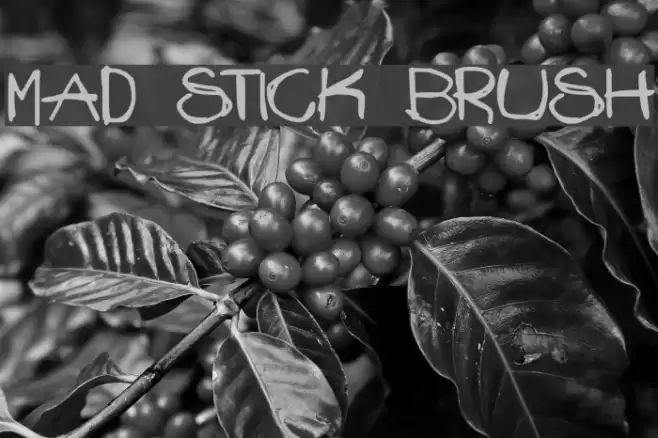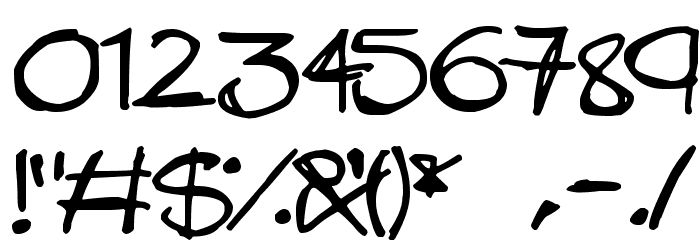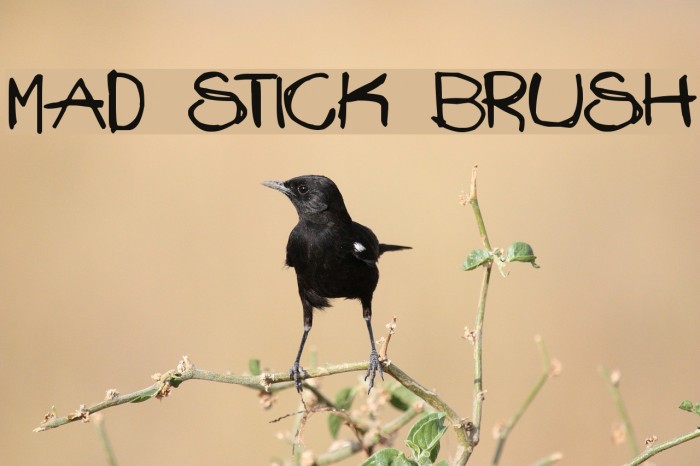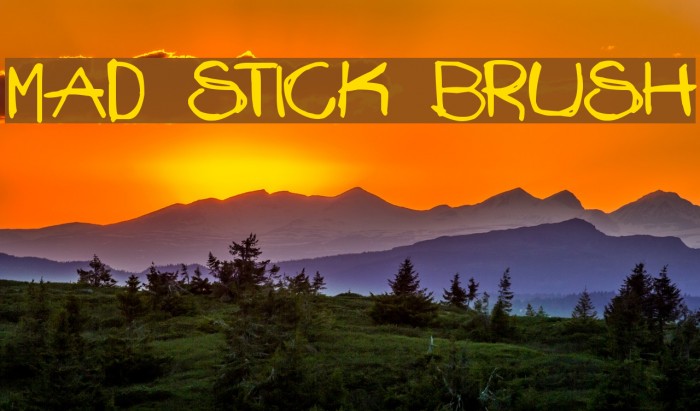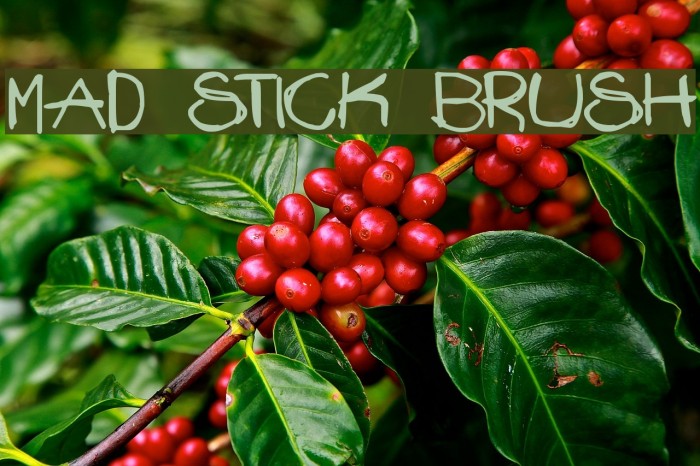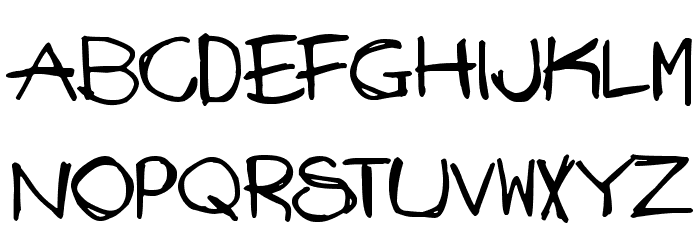
Mad Stick Brush Font
Mad Stick Brush Description
This font exudes a dynamic and energetic vibe, characterized by its bold, brush-like strokes that mimic the fluidity of hand-drawn lettering. The uppercase and lowercase letters maintain a consistent style, with slightly irregular edges that add to its handcrafted appearance. The numerals and special characters follow the same aesthetic, ensuring a cohesive look across all text elements. This font is perfect for projects that require a personal touch or a sense of movement and creativity.
A bold, brush-style font with a dynamic, handcrafted feel from Uncategorized fonts.
- Proposed Projects: Ideal for posters, artistic projects, branding materials, and any design that benefits from a lively, personal touch.
- Overall Style: Modern, Artistic